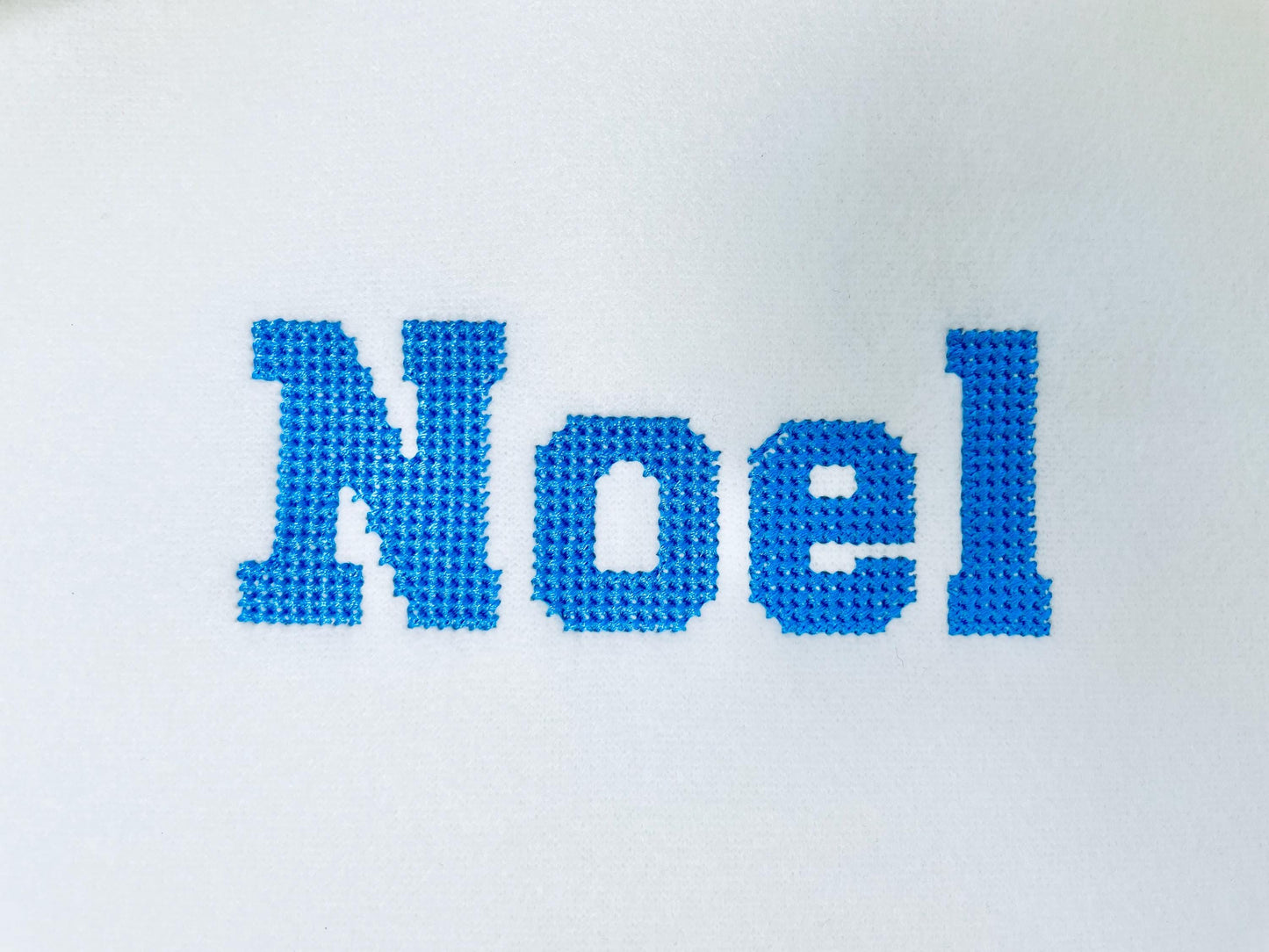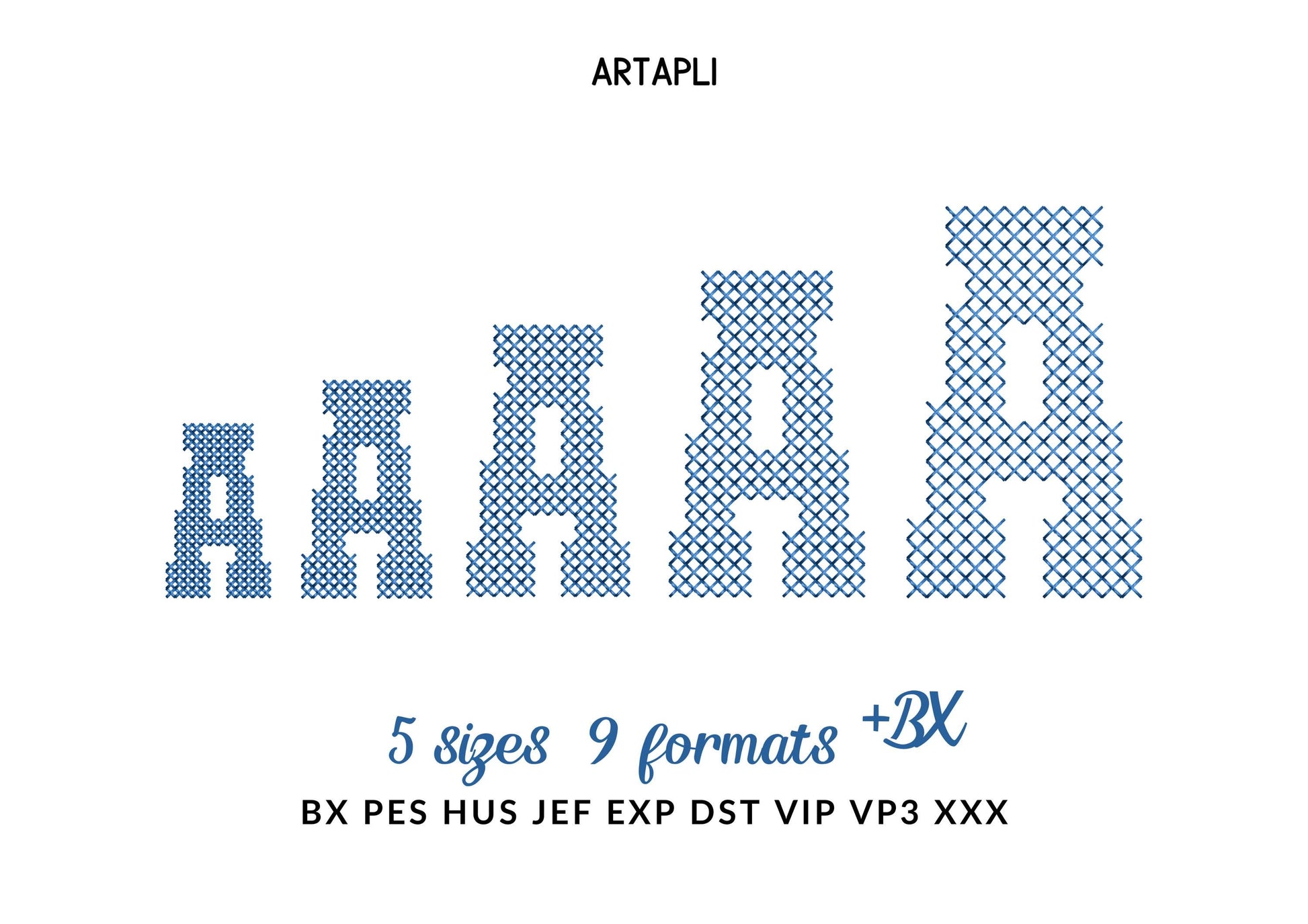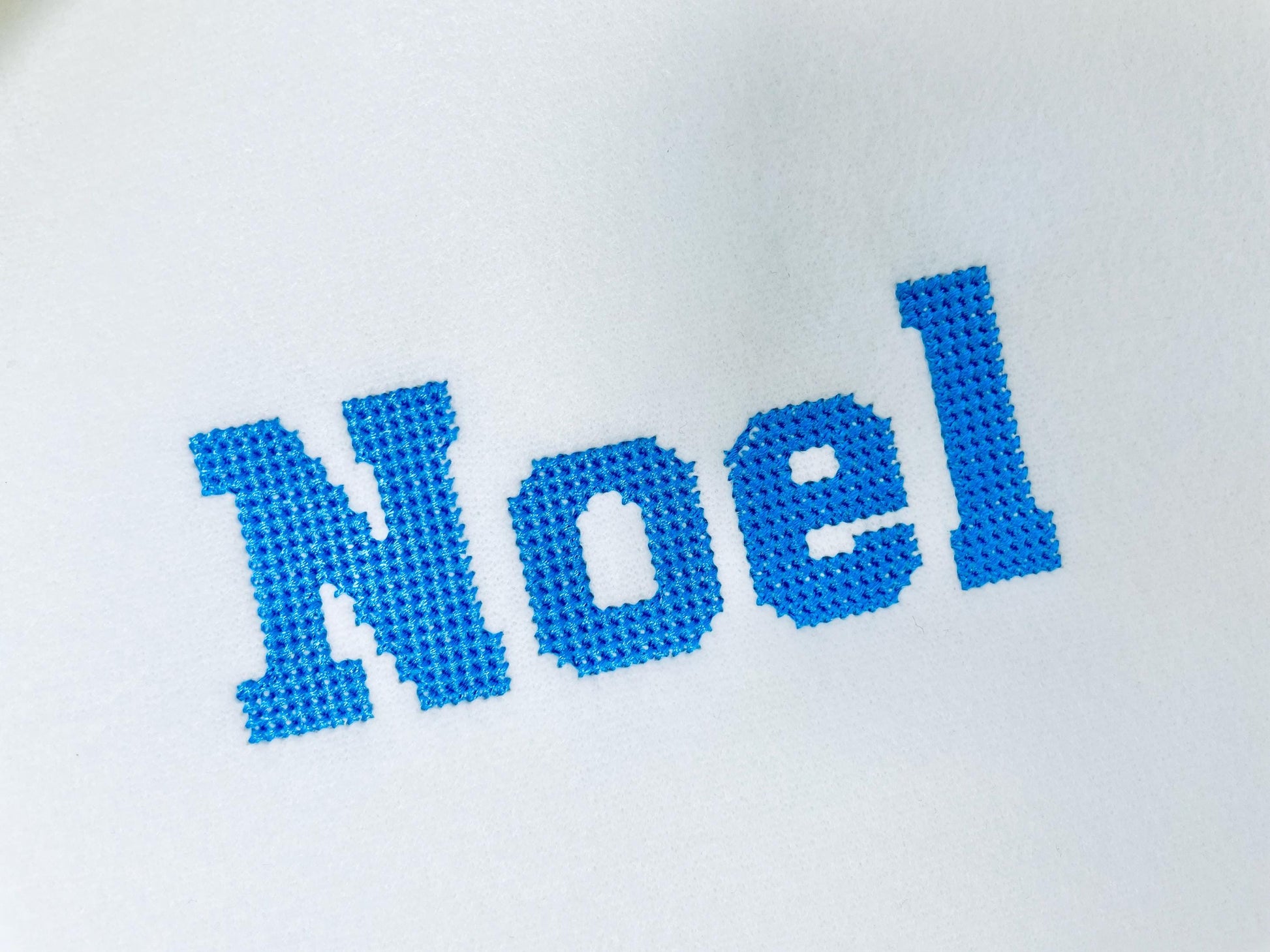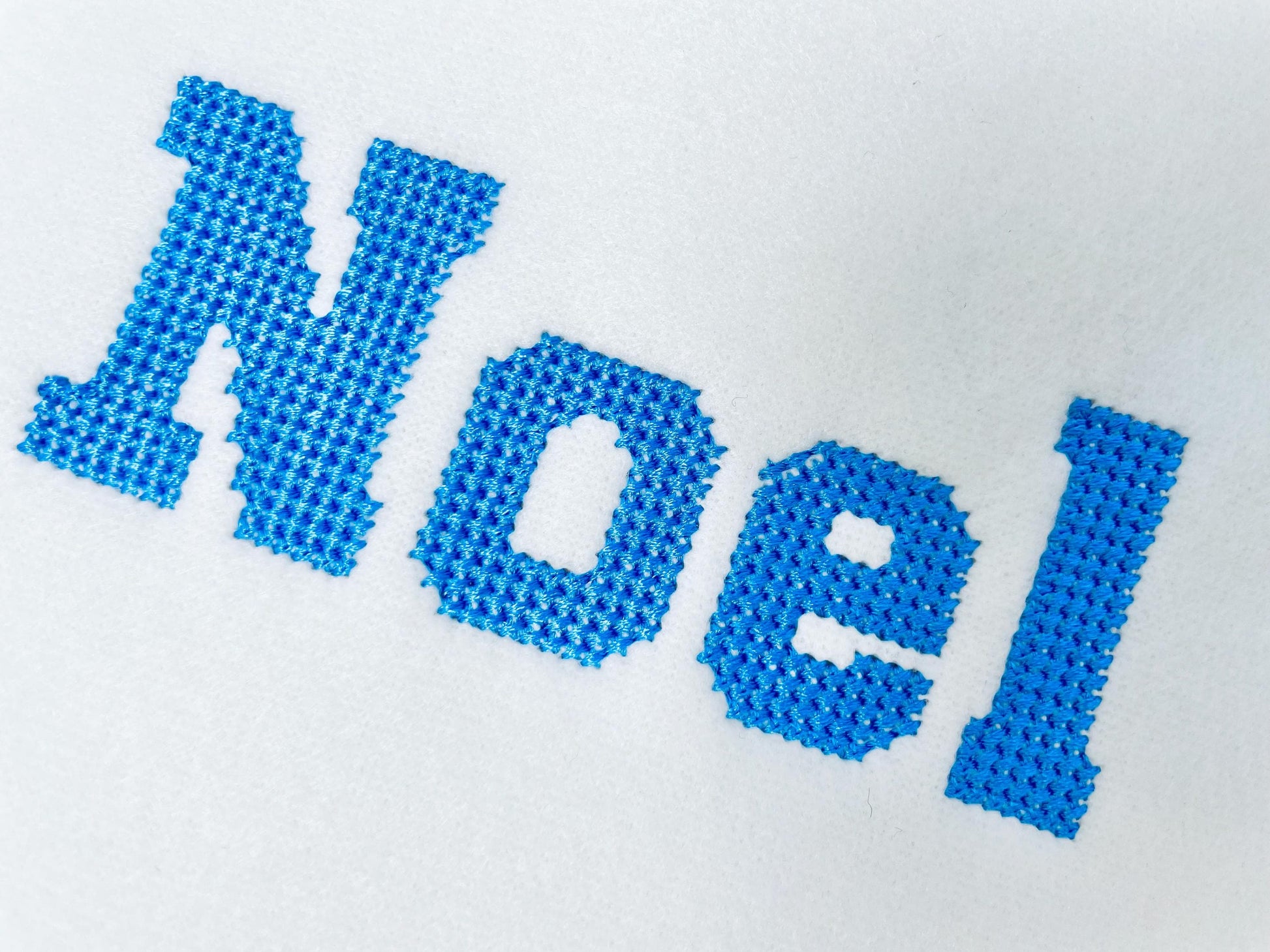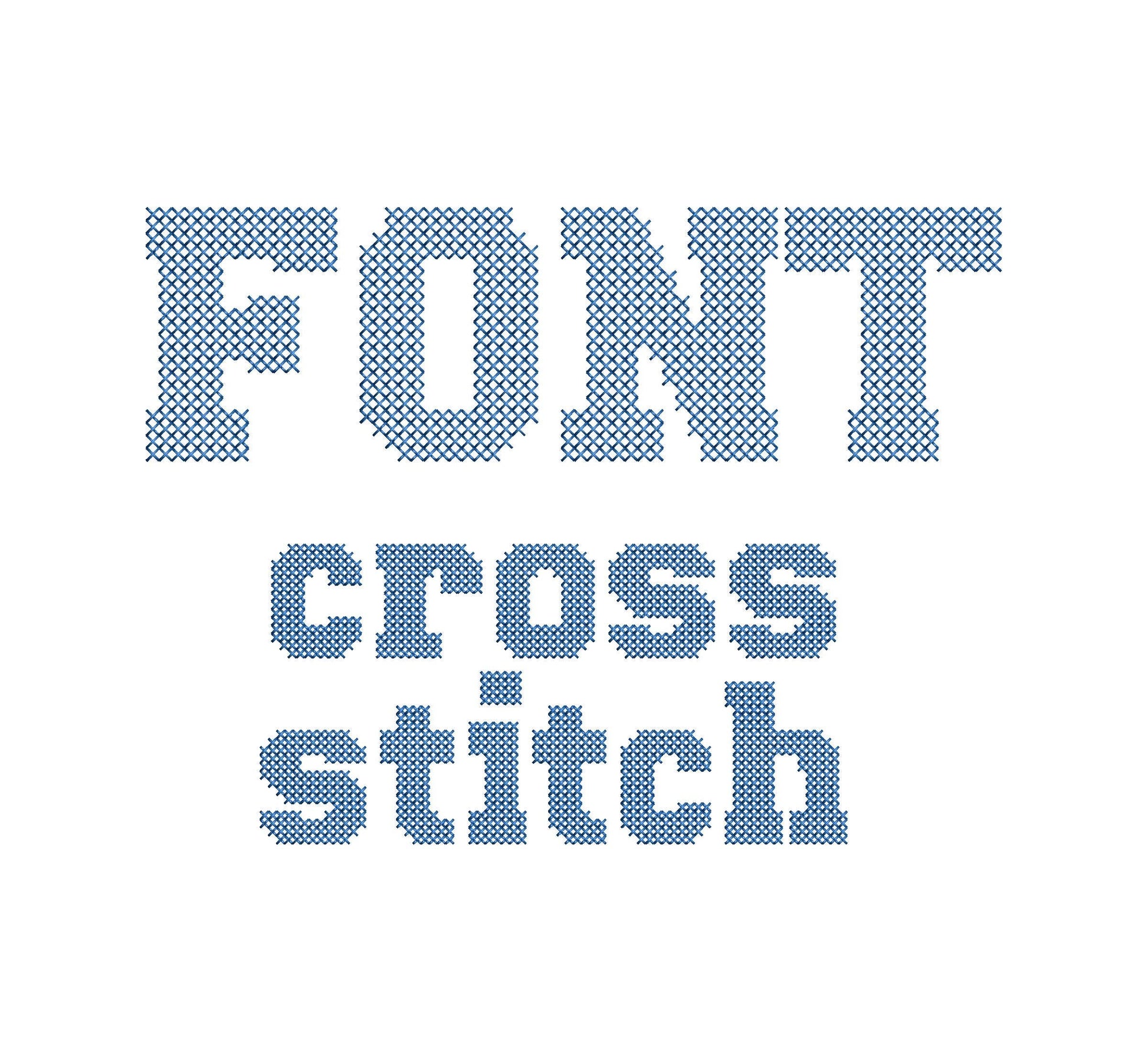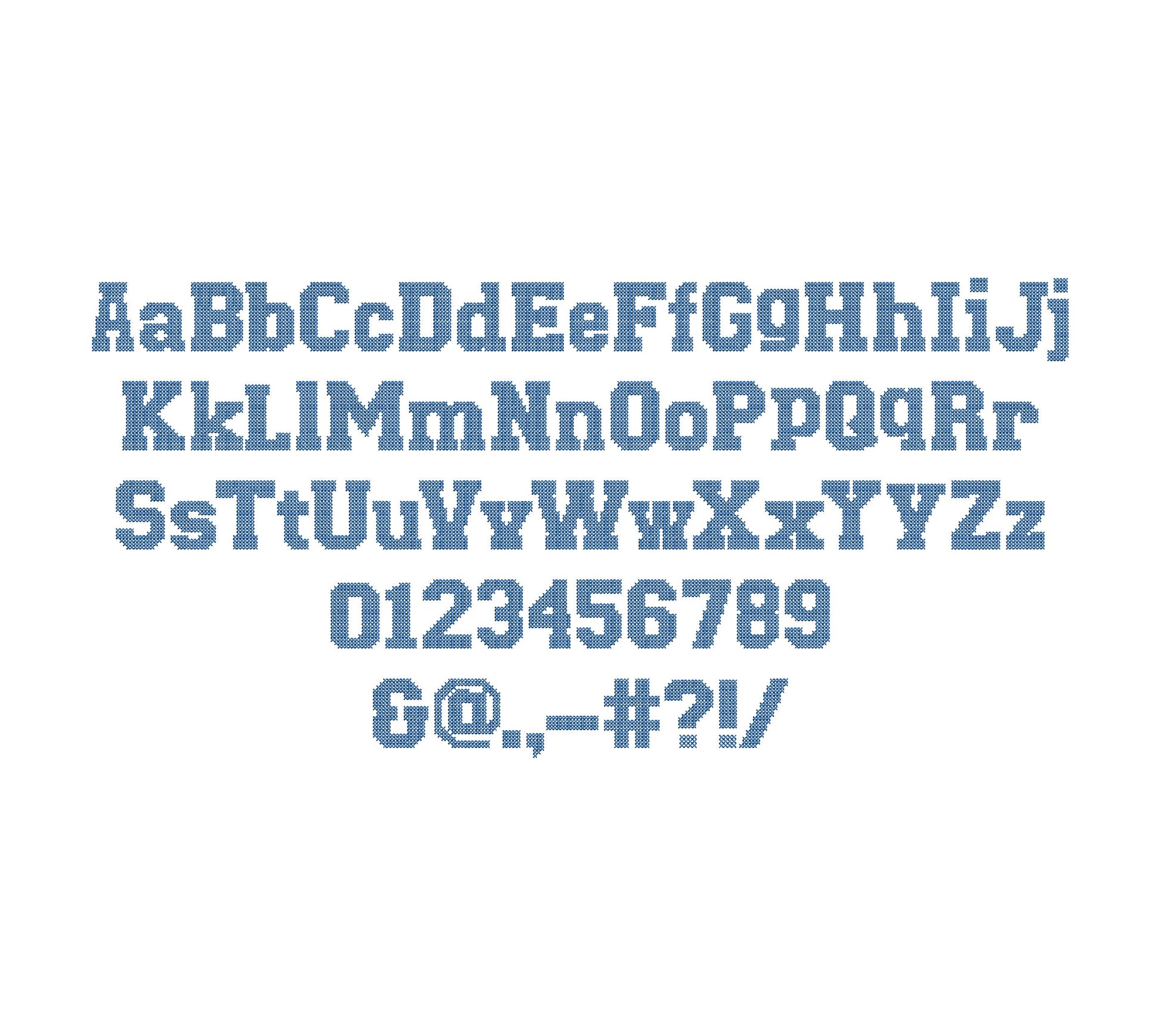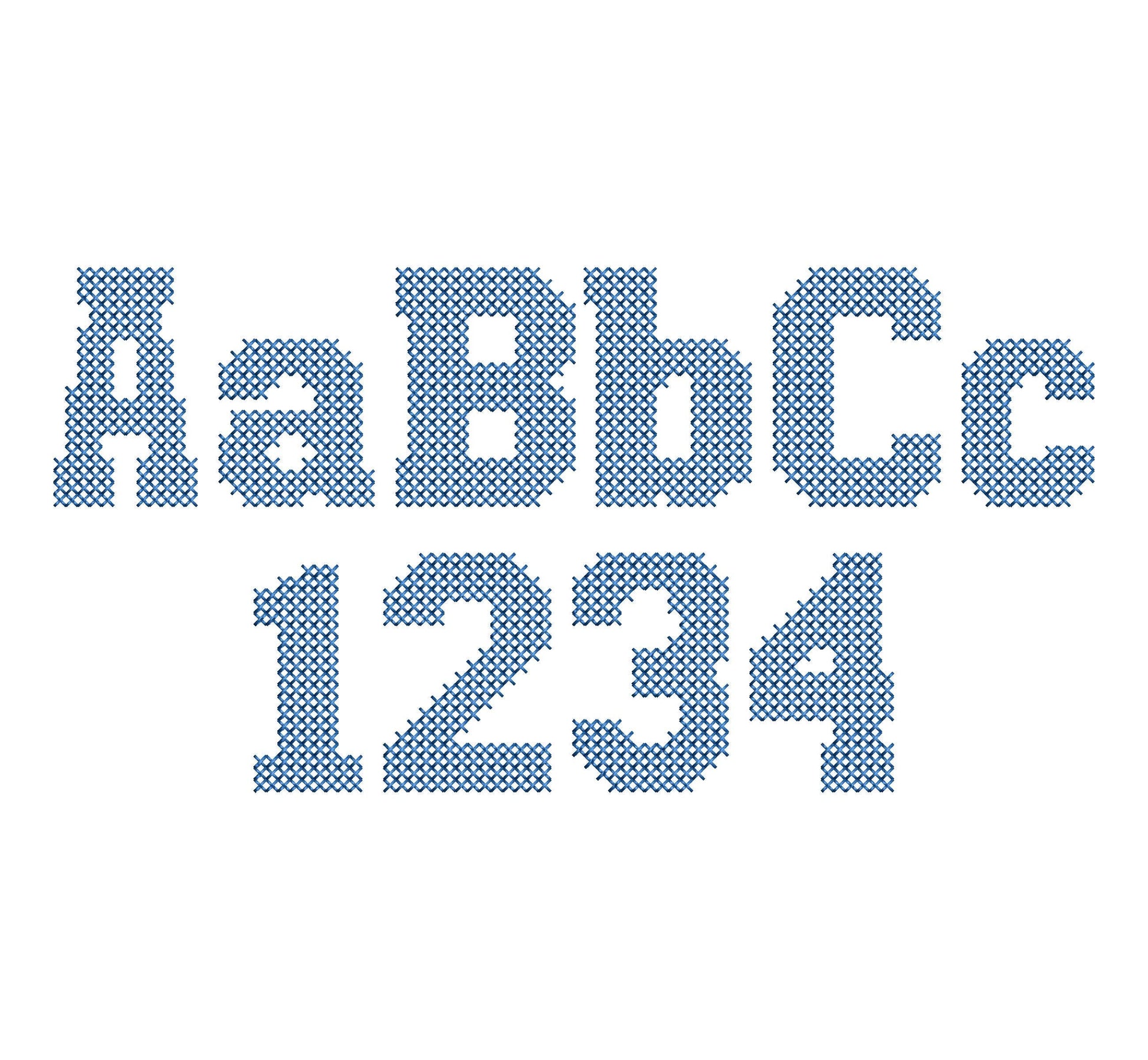
Cross Stitch Sport Block Font
Or click to open the linkA sport block font in cross stitch for a handmade look. Fun for team shirts, names, sleeves and gifts.
Uppercase and lowercase letters, numbers 0 to 9 and lots of punctuation, in five mini sizes: 1.2, 1.6, 2, 2.4 and 2.8 inches.
- Cross stitch sport block font
- Uppercase and lowercase letters, numbers 0-9, punctuation
- 5 sizes, 1.2 to 2.8 in